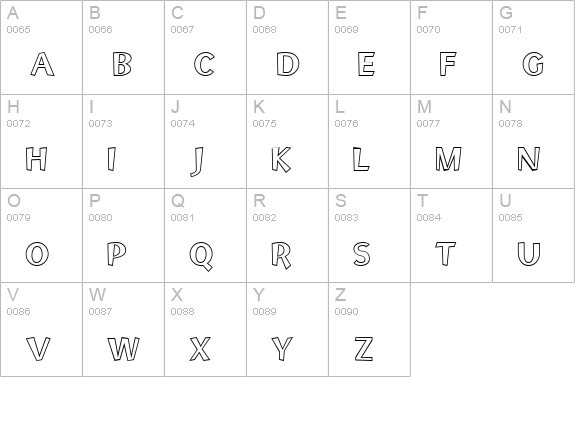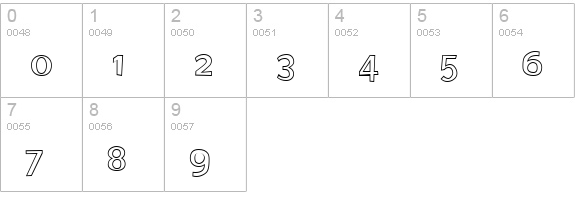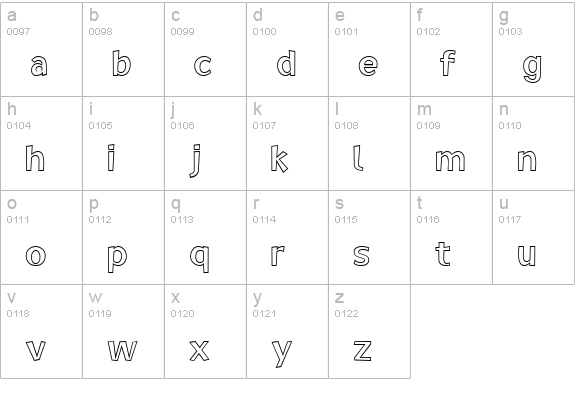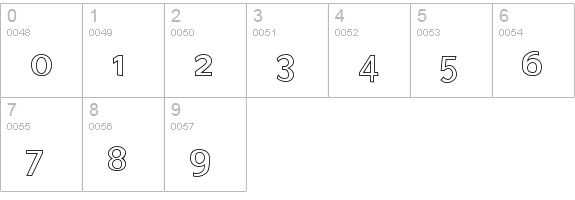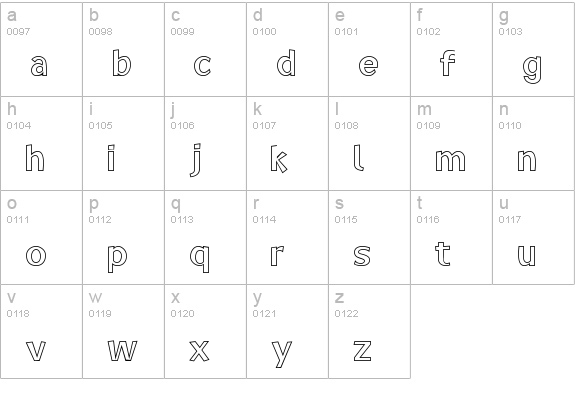
Elected Office Outline Font Details
Elected Office Outline font is a modern and sophisticated typeface perfect for creating eye-catching designs. With its clean lines and elegant feel, this font exudes professionalism and authority, making it an ideal choice for projects related to government, politics, or corporate branding. What sets Elected Office Outline font apart is its sleek outline design, adding a unique touch to any text or layout. Whether used for headlines, logos, or signage, this font commands attention and conveys a sense of importance. The best part is that Elected Office Outline font is completely free to download at FontsMarket.com. This means you can elevate your designs with this premium font without any cost, making it a valuable addition to your font collection. Download Elected Office Outline font today and see how it can enhance your projects with its distinctive style and professional appeal.